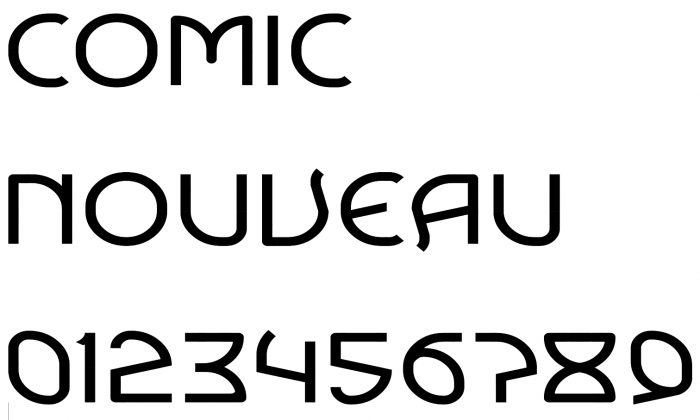
• COMIC NOUVEAU — Script inspired Art Nouveau style
This is my entry in the NumbersComp...
I'm sorry that it does not live up to my standard, but I simply don't have te time to be a contender this year. My entry is only because I know I would be mad with myself when I wouldn't submit at least "something.
Very pretty jewell, btw!
What a beautiful design, it shows the "essence" of Art Nouveau. How that floral-based flowing style could have developed had it encountered the later fine-line glyphs fashion directly,  without being 'overrun' by the constructed angularity of Art Deco. 10/10 and fav
good font, i like the thin lines.
As for the font, I like it, it's a really great idea. Sad that you will not be participating in the competition anymore. 10/10 and fav anyway.